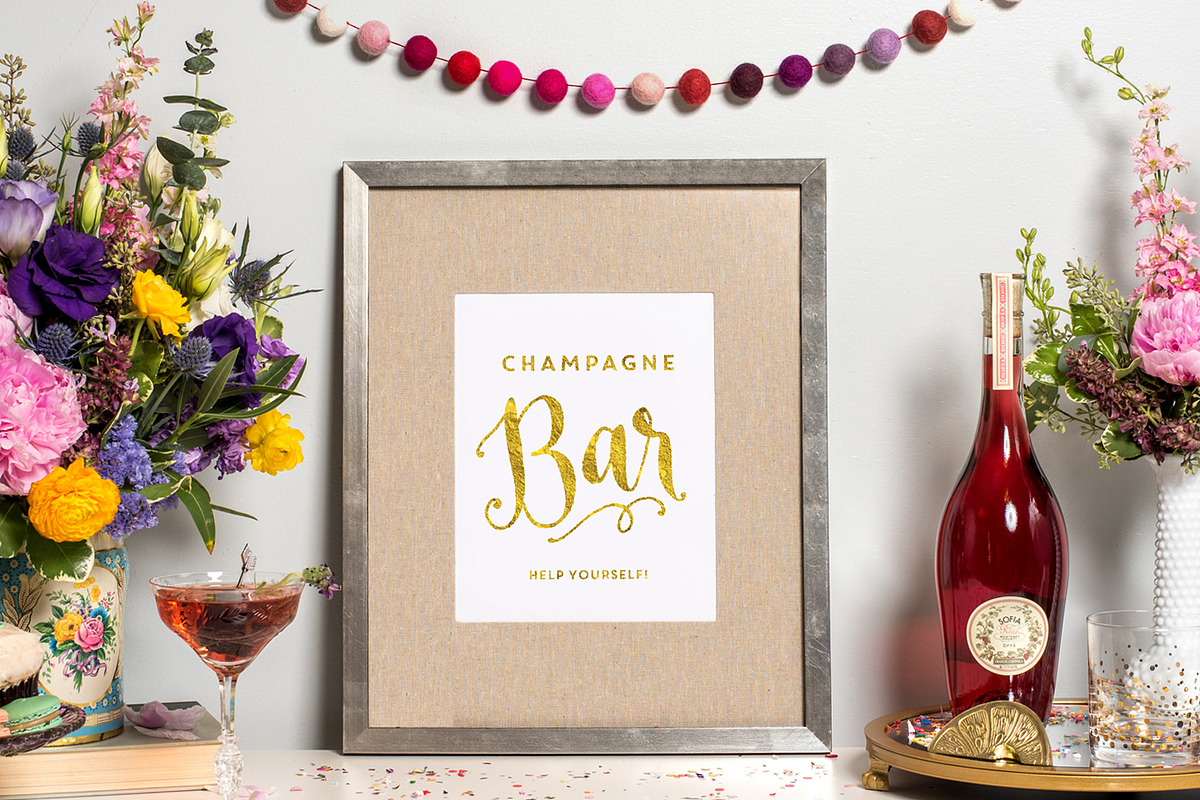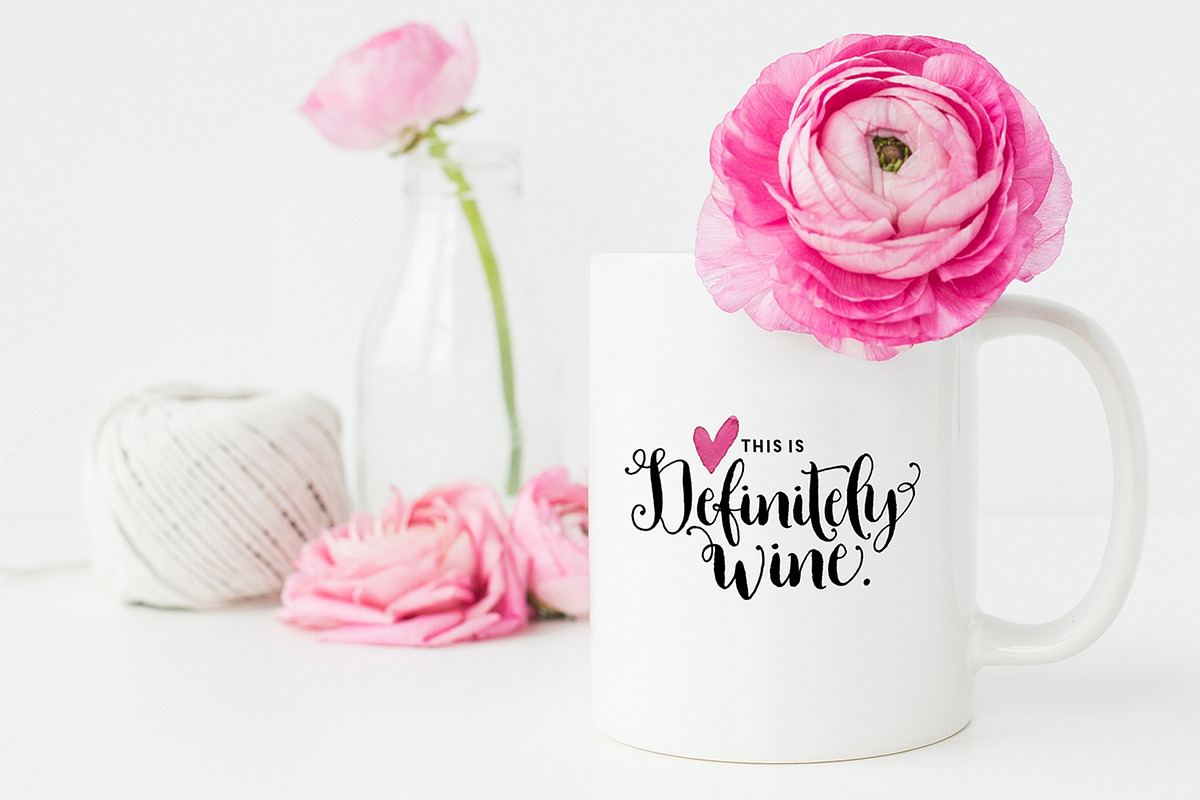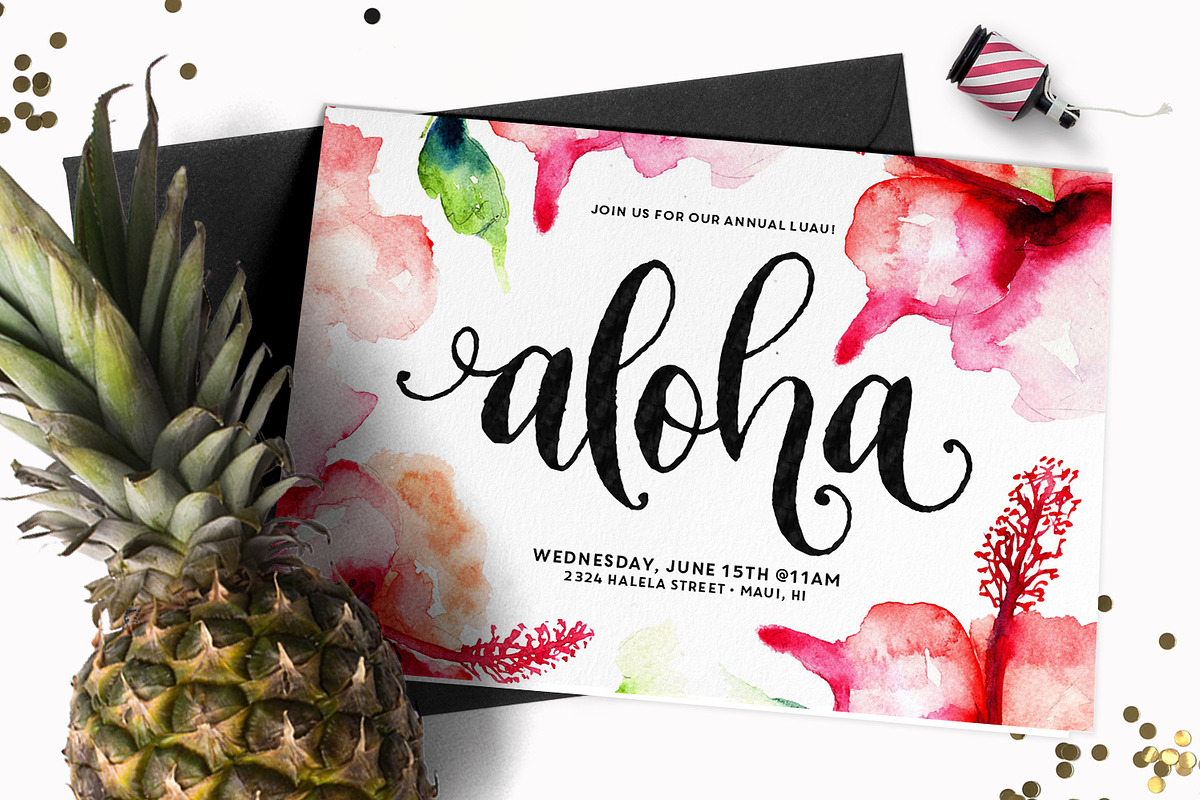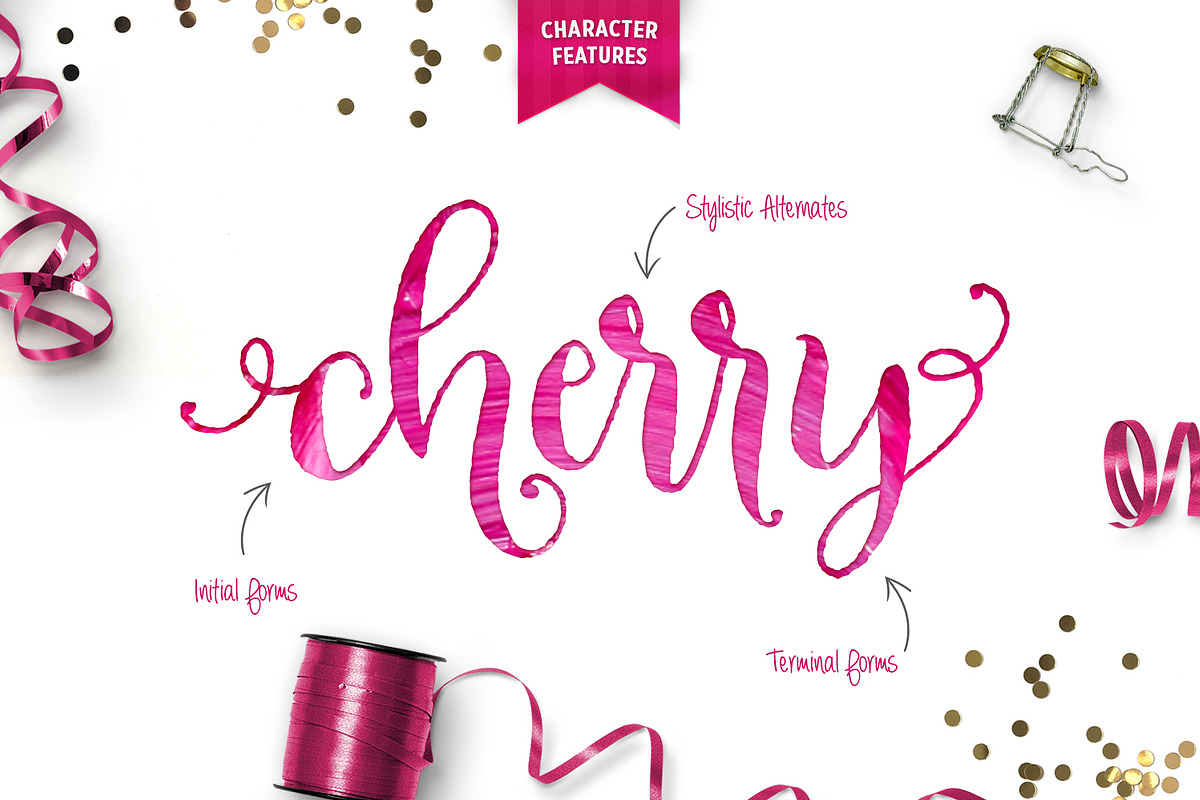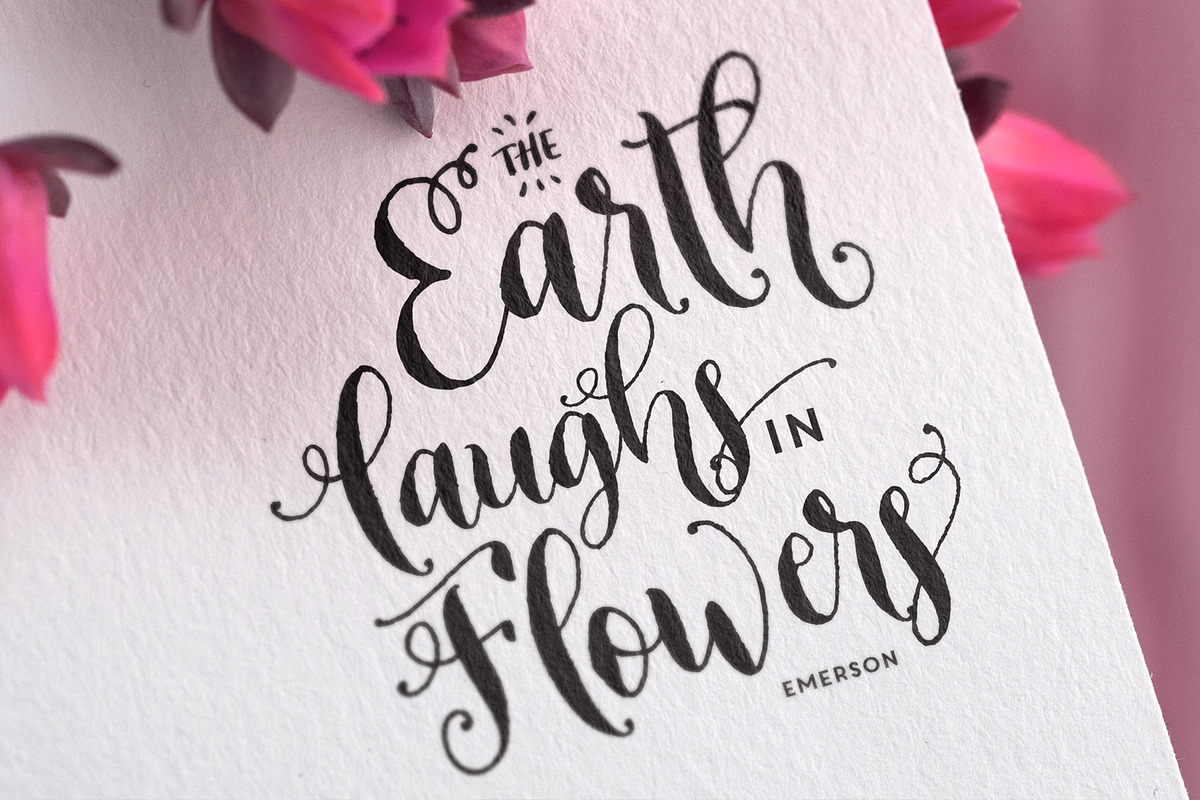
Celebrate Font & Graphics Pack
Celebrate Font & Graphics Pack by Callie Rian & Co. is a font selected for branding, posters, packaging, typography.
- A bouncy, fun modern calligraphy font with TONS of celebration catchwords, alternates and a sweet graphic bonus!
Why Celebrate Font & Graphics Pack is worth a look
Celebrate Font & Graphics Pack by Callie Rian & Co. fits naturally into Branding, posters, packaging, typography.